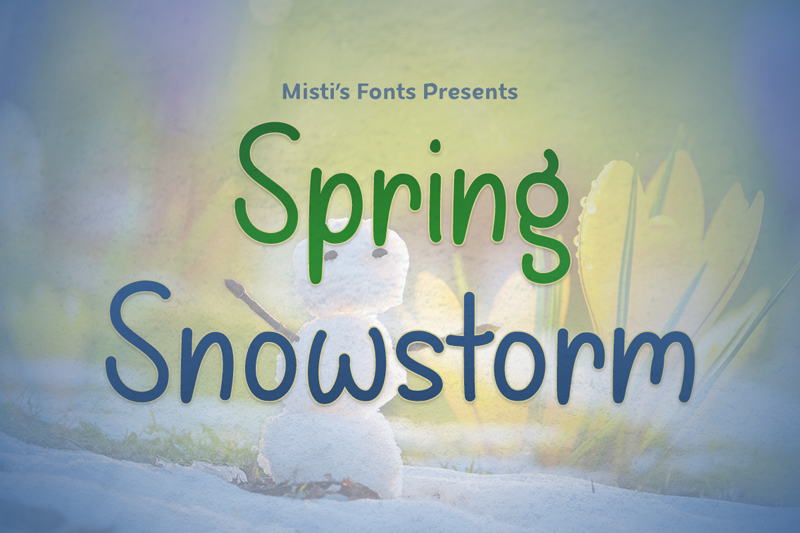
Preview and download Spring Snowstorm Font. Created by Misti's Fonts in Script Handwritten styles with Free for personal use license.
Font name: | Spring Snowstorm |
Spring Snowstorm is a cute and quirky handwritten typeface that will surely bring a smile to your face! It is perfect for adding a whimsical charm to your designs. It would look great for shop logos, sublimation projects, product labels, Easter greeting cards, and so much more! Terms Of Use and Commercial Use: https://mistifonts.com/spring-snowstorm/ |